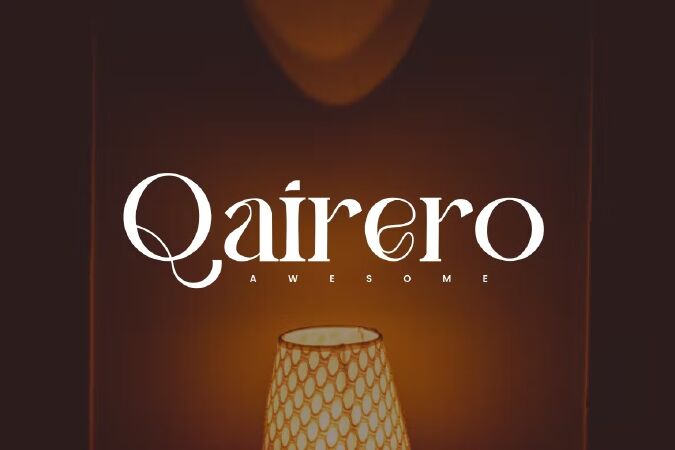
A serif font is a font with small strokes or extensions at the end of its longer strokes. Serifs have their roots in ancient Roman square capitals, and became widely used with the advent of the printing press. They are often used in books, magazines, and newspapers, as serif fonts are considered easier to read in long-form use cases. If you are looking for the best serif font for your designs then you can use the serif fonts in our list.
1 Caffe - serif font
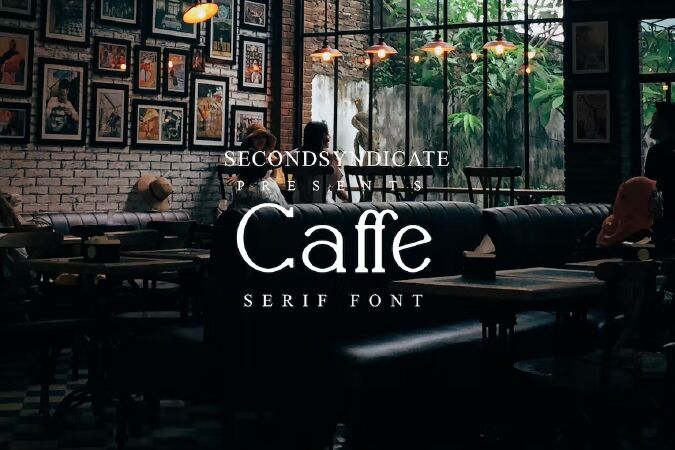
CAFFE
Serif font - CAFFE for your personal or business purpose.
2 Serif Font
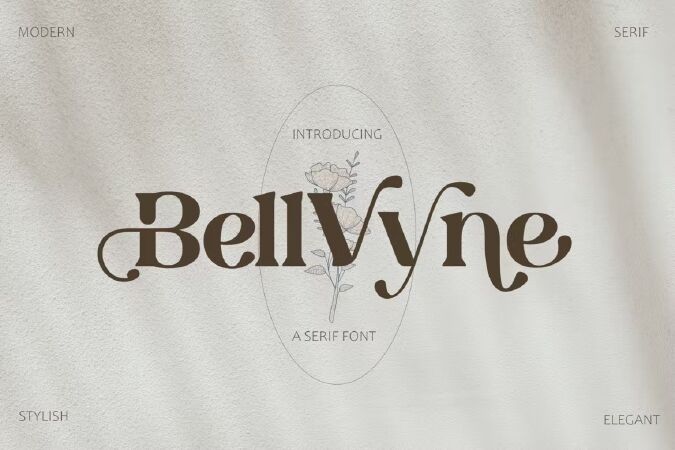
Looking for an elegant but unique serif font that looks equally great on screen as well as on paper?
Introducing Bellvyne- A Serif Font.
Stylish with a touch of modern, Bellvyne is perfect for making your brand stand out. It’s a great choice for web pages, apps, ads, banners, promotions, printed cards, packaging, and pretty much anything else your project needs.
3 Bristain Rought Serif Font
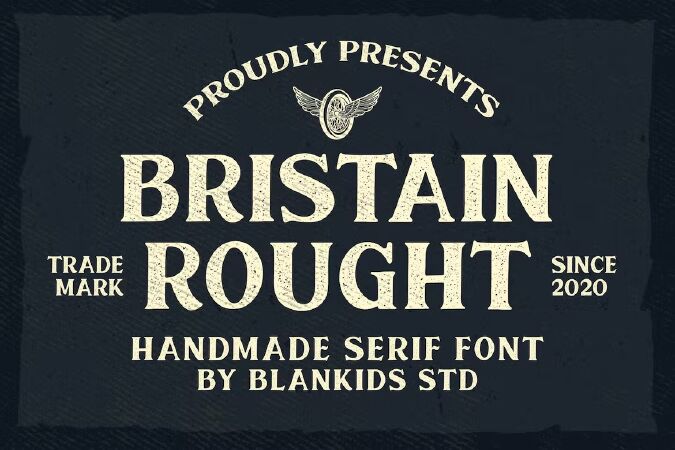
Introducing of our new product the name is Bristain Rought Serif Font. Bristain Rought inspired by modern vintage poster this font is a fun theme very good for poster, apparel, badge, label, emblem etc
4 Trellis Bold Serif
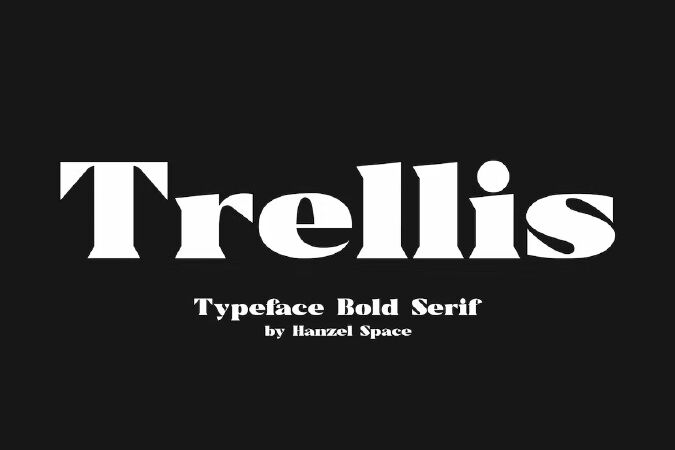
Trellis//Typeface Bold Serif is a wedge serif font that is sure to stand out! A little bit retro and a bit modern, Trellisis great for logos, editorial or web design. The unique sharp serifs mixed with thin strokes give off a bold mid century architectural vibe.
5 Riverdale Serif Font
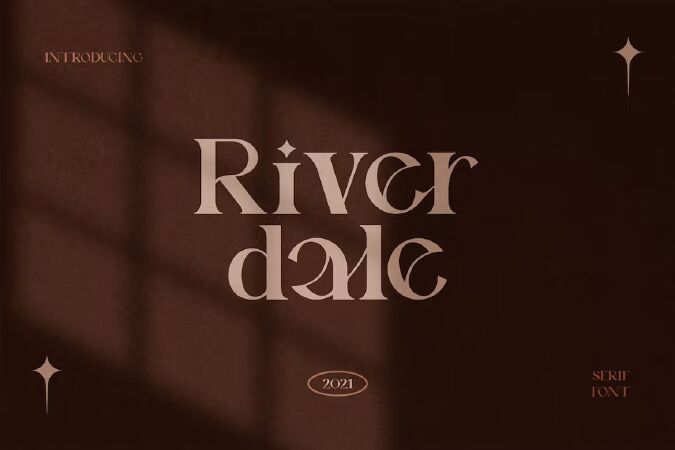
Riverdale Serif Font This all caps font is suitable for posters, magazines, apparels, movie headlines, packaging and more.
6 Grofana Serif Font
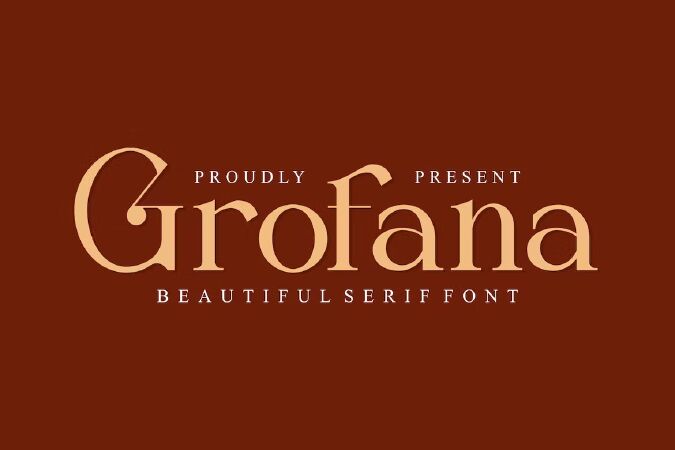
Grofana is a beautiful serif font. This font perfectly made to be applied especially in logo, and the other various formal forms such as invitations, labels, logos, magazines, books, greeting / wedding cards, packaging, fashion, make up, stationery, novels, labels or any type of advertising purpose.
7 Portent Serif Font
This modern serif typeface features serifs. Perfect for gorgeous logos & titles, Portent will pair beautifully with many fonts and work well with whatever project you're working on.
10 Alchemist Serif Font